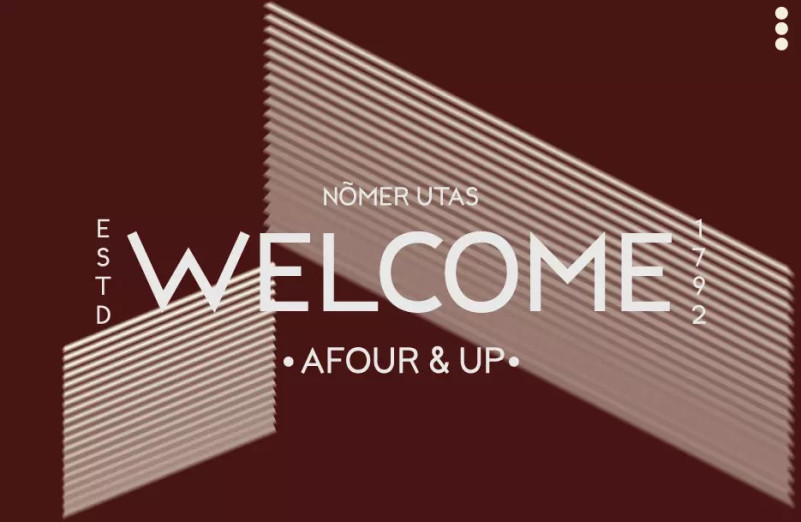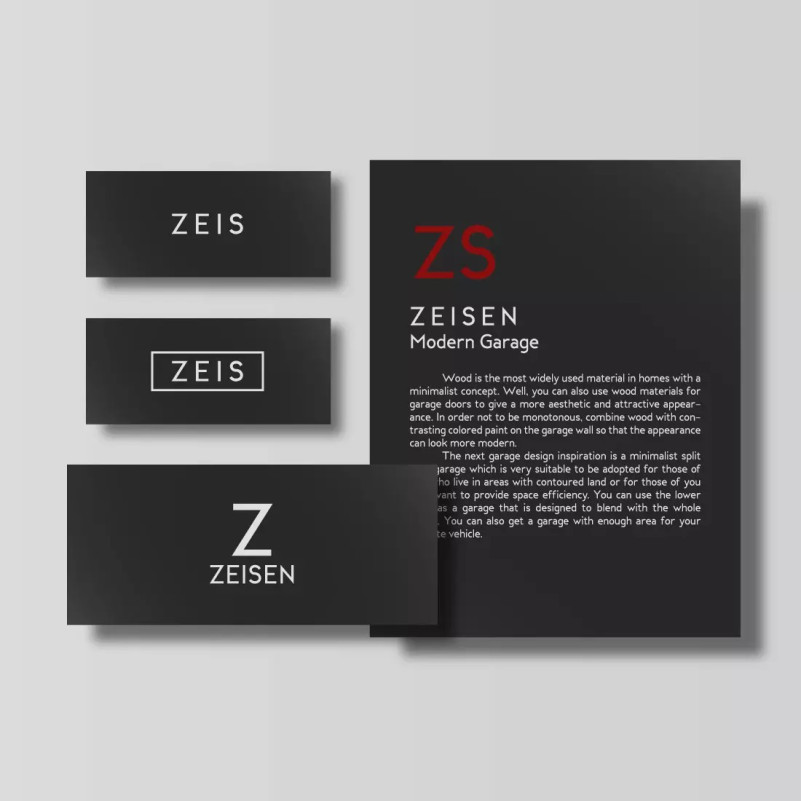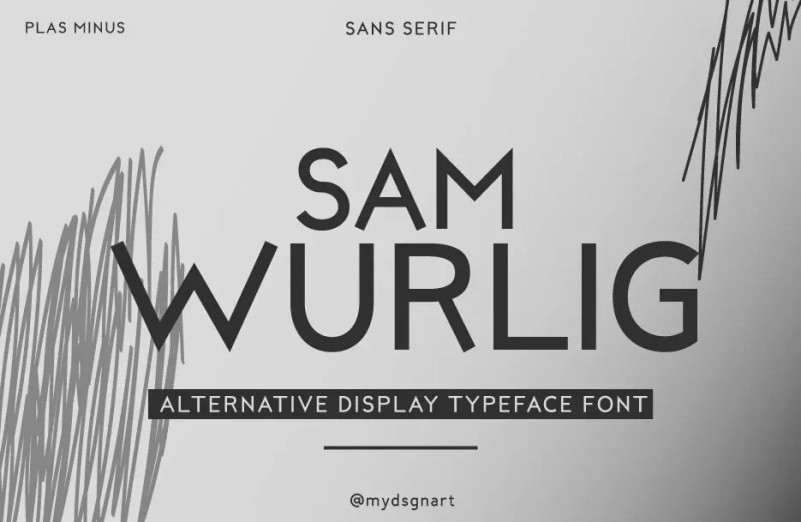
Sam Wurlig Font
Sam Wurlig Sans Serif Font by Lutpi M is an expanded display font that effortlessly evokes an aggressive yet elegant vibe with a modern twist. Choosing this font is a stellar solution for classy design projects that demand to leave a strong and professional impression.
Consisting of 2 beautiful weights and matching italics, this minimalist sans serif will fit wherever you put it. Use this for clothing designs, posters, branding and more!